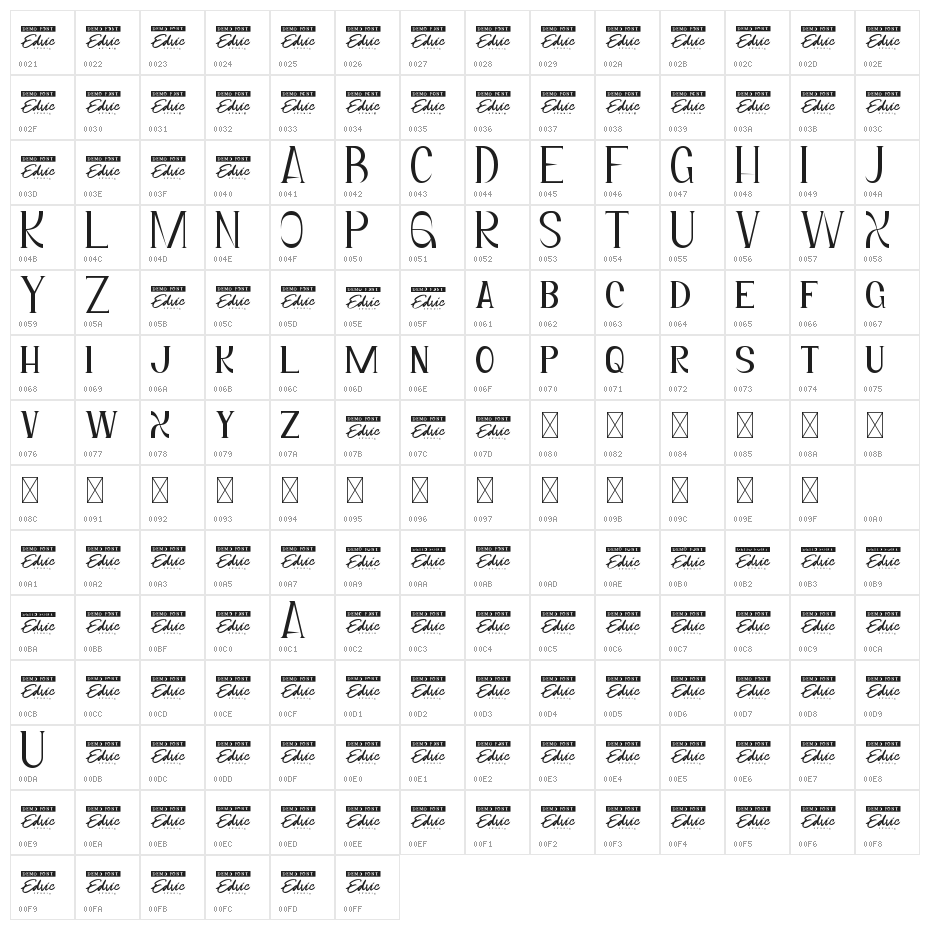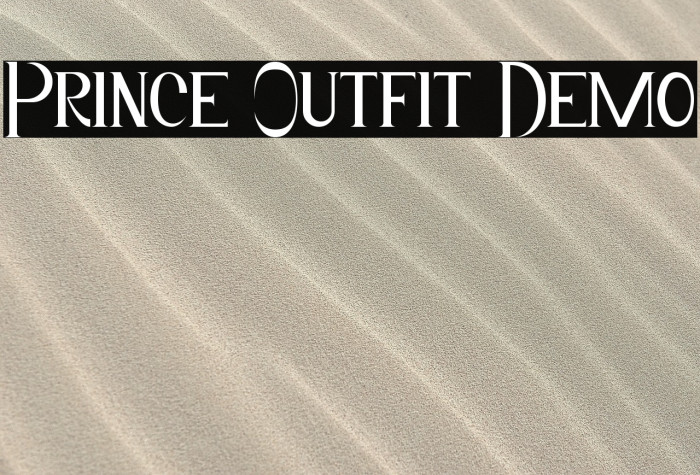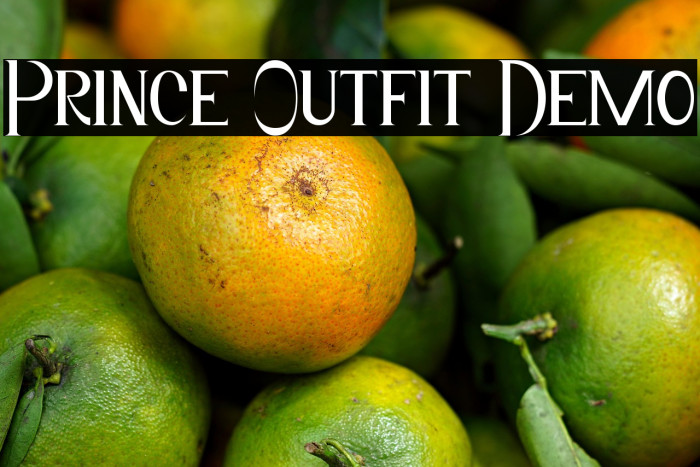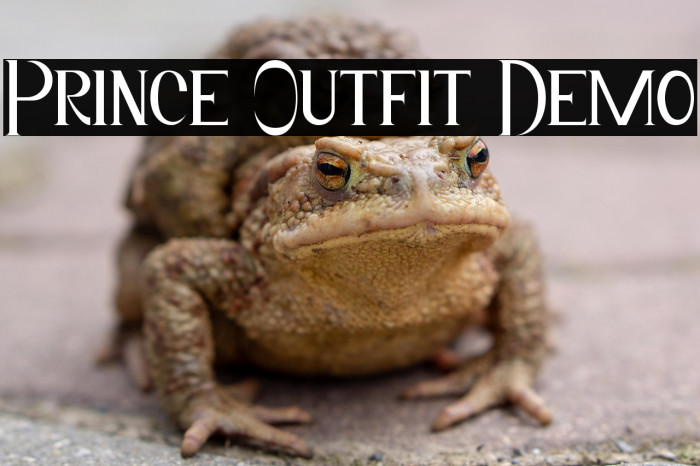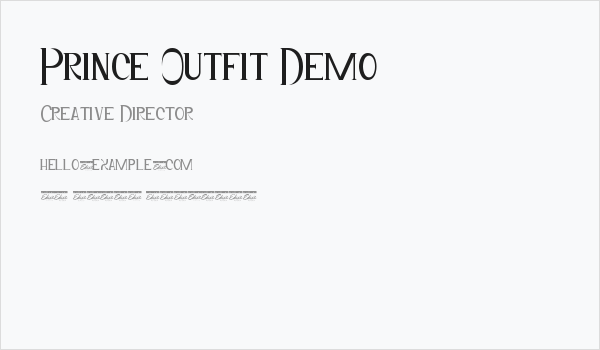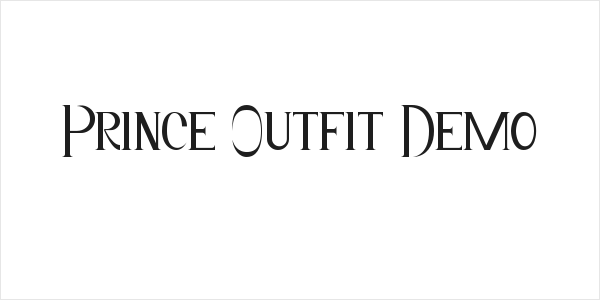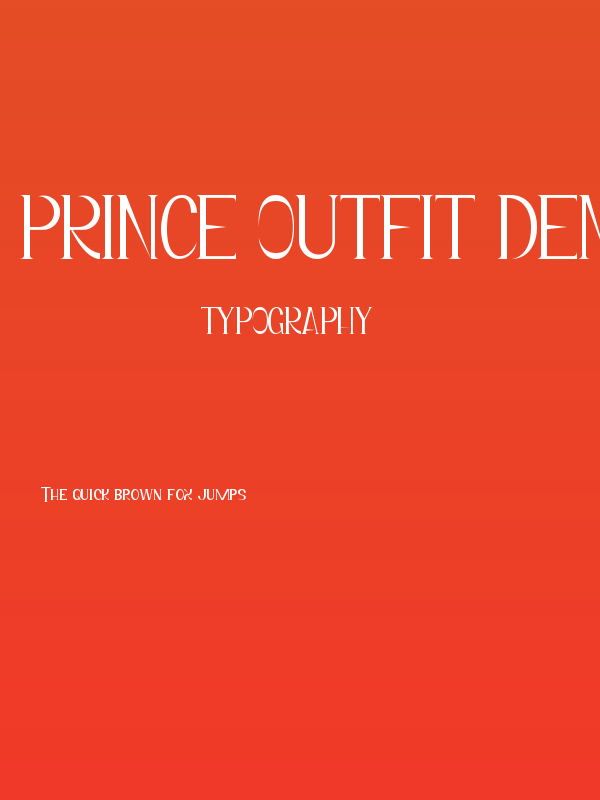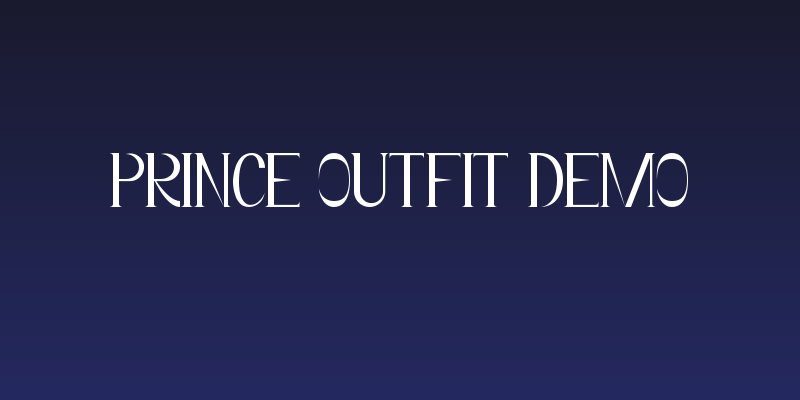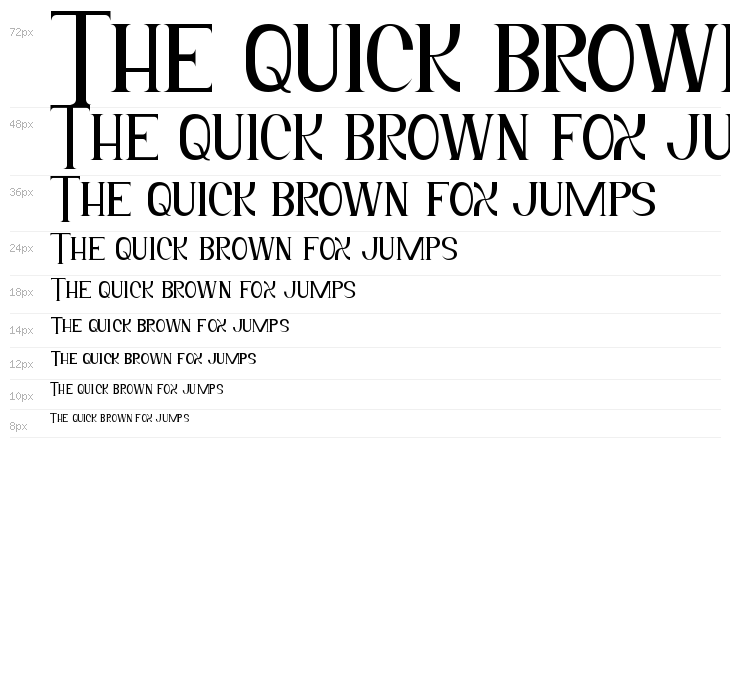
Prince Outfit Demo Font
Prince Outfit Demo Description
This font features a unique blend of modern and vintage styles, characterized by its elegant and sophisticated letterforms. The uppercase letters exhibit a distinct flair with sharp, angular serifs and a high contrast between thick and thin strokes. The design is both bold and refined, making it suitable for high-impact visual statements. The lowercase letters maintain a consistent style, complementing the uppercase with a slightly more subdued appearance. The overall aesthetic is reminiscent of classic calligraphy, yet it incorporates contemporary elements that give it a fresh and dynamic look.
| Overall Style | Modern, Vintage |
| Proposed Projects | Ideal for luxury branding, editorial design, fashion magazines, and high-end product packaging. |